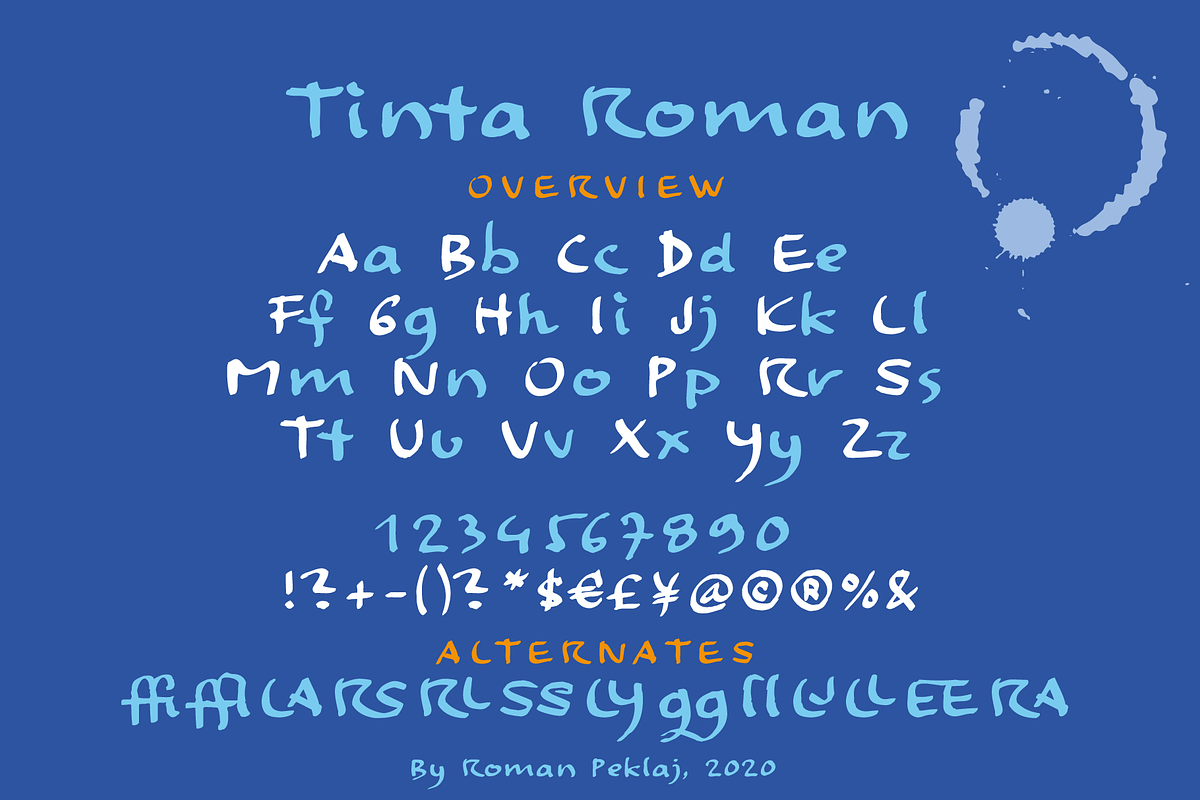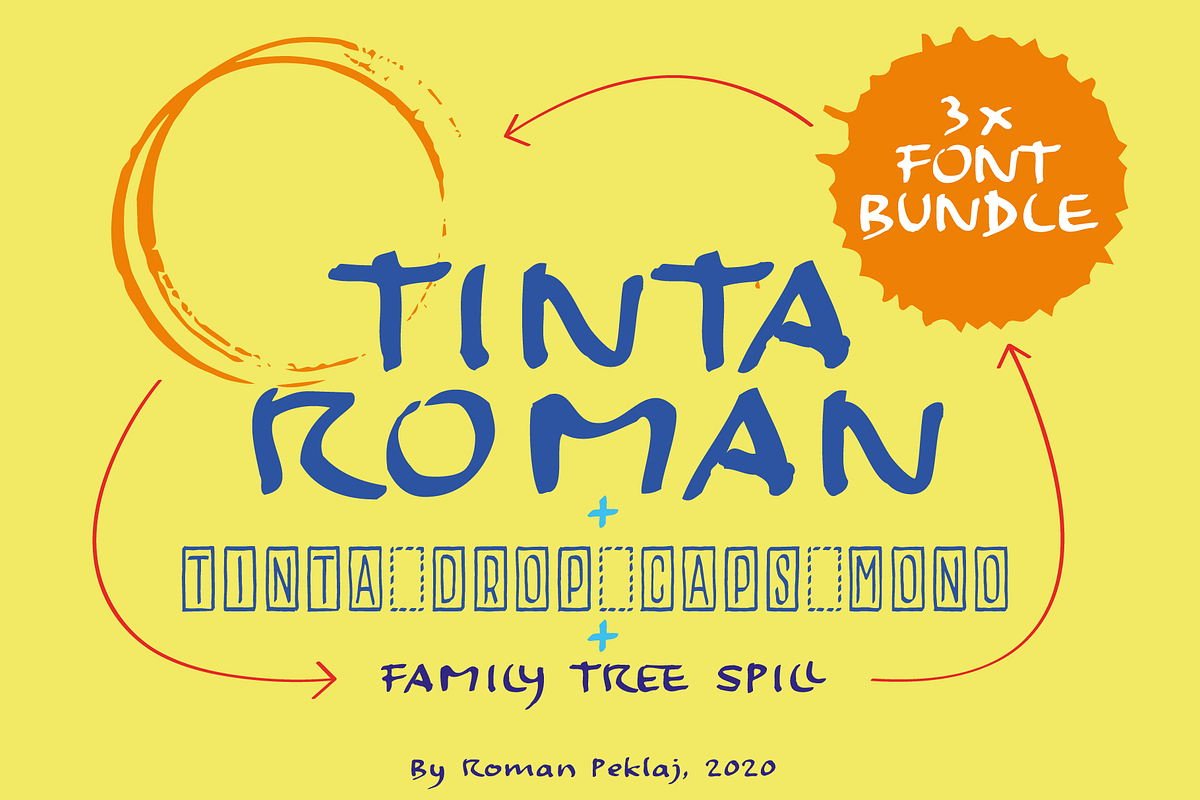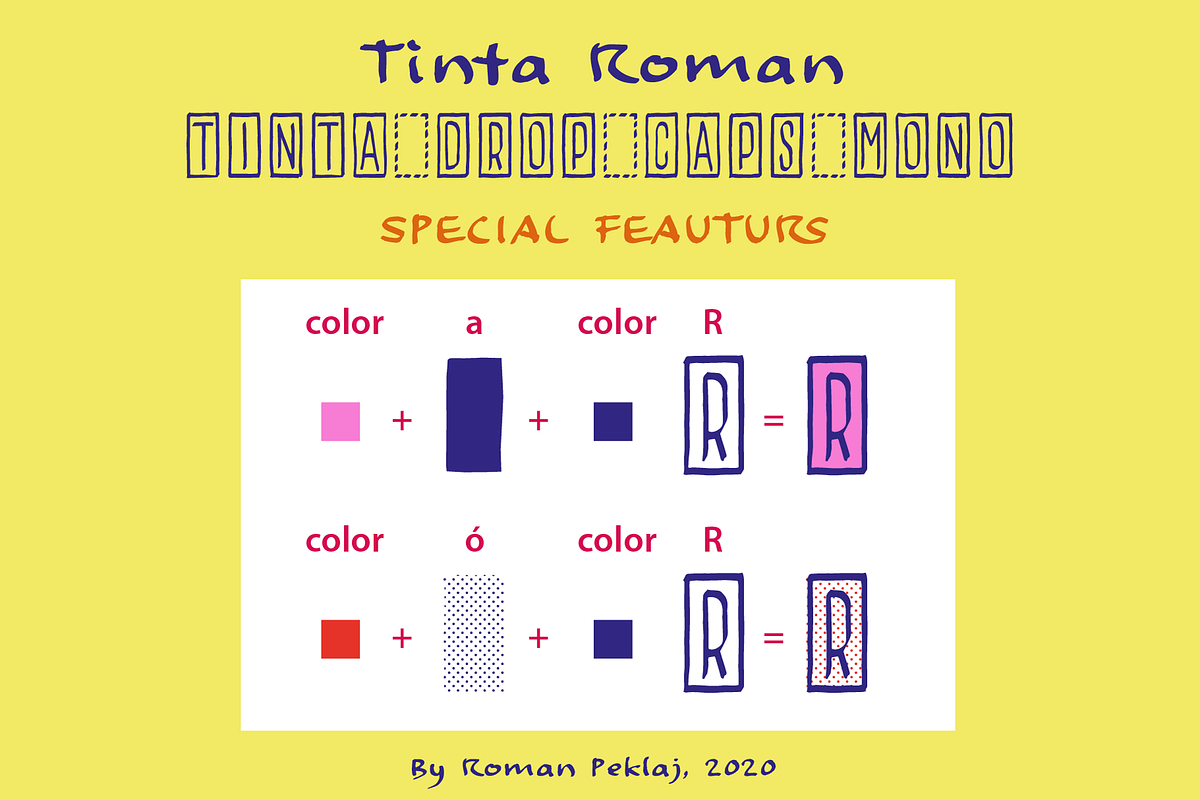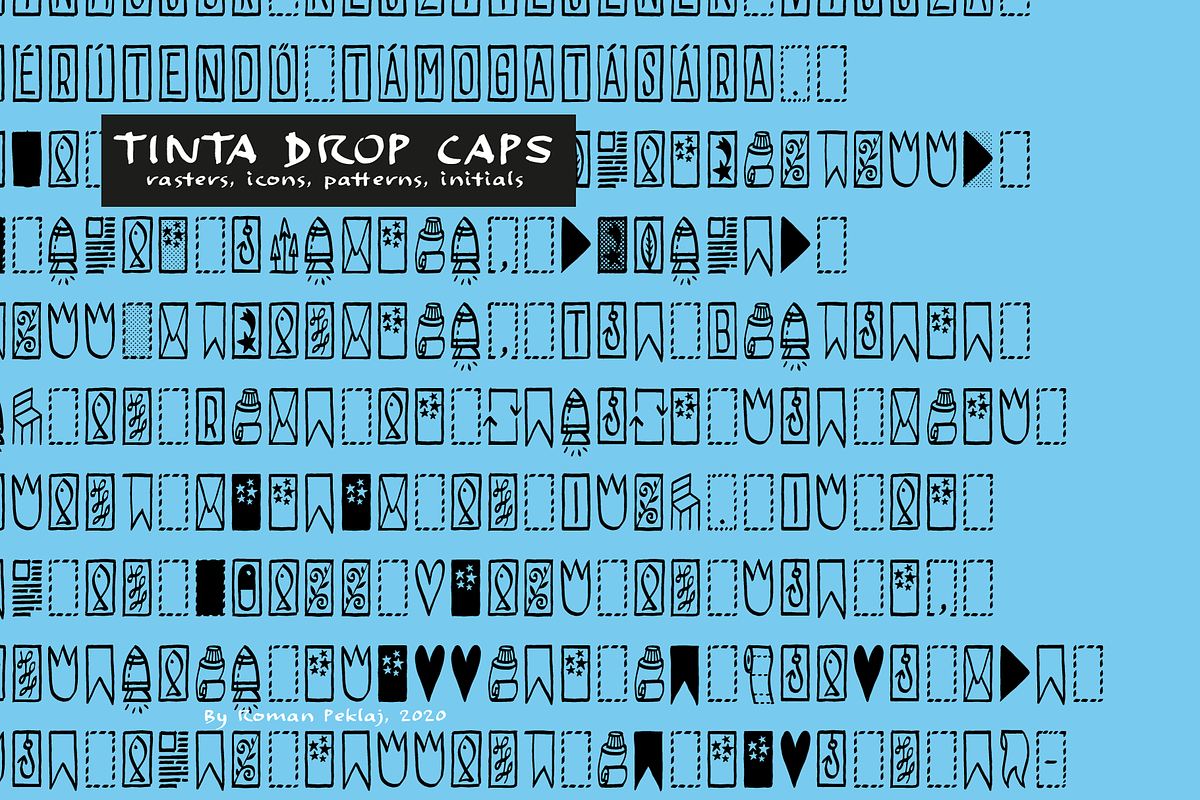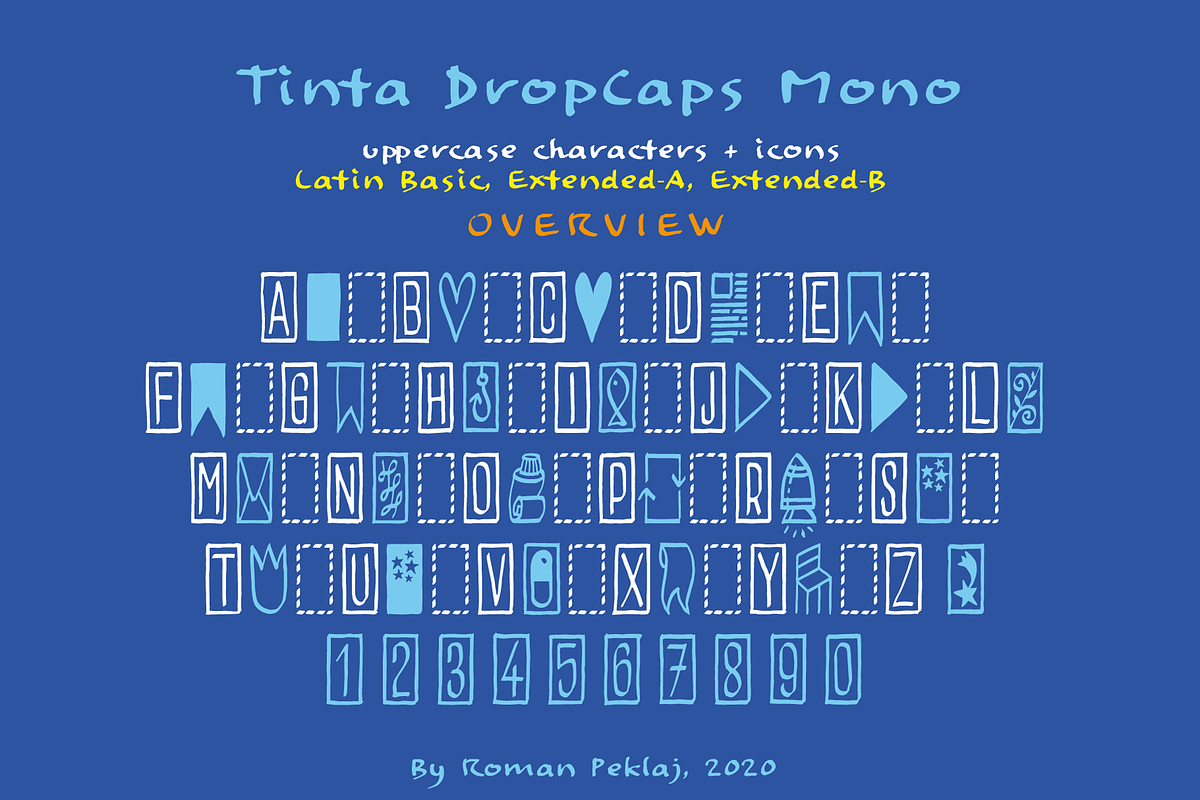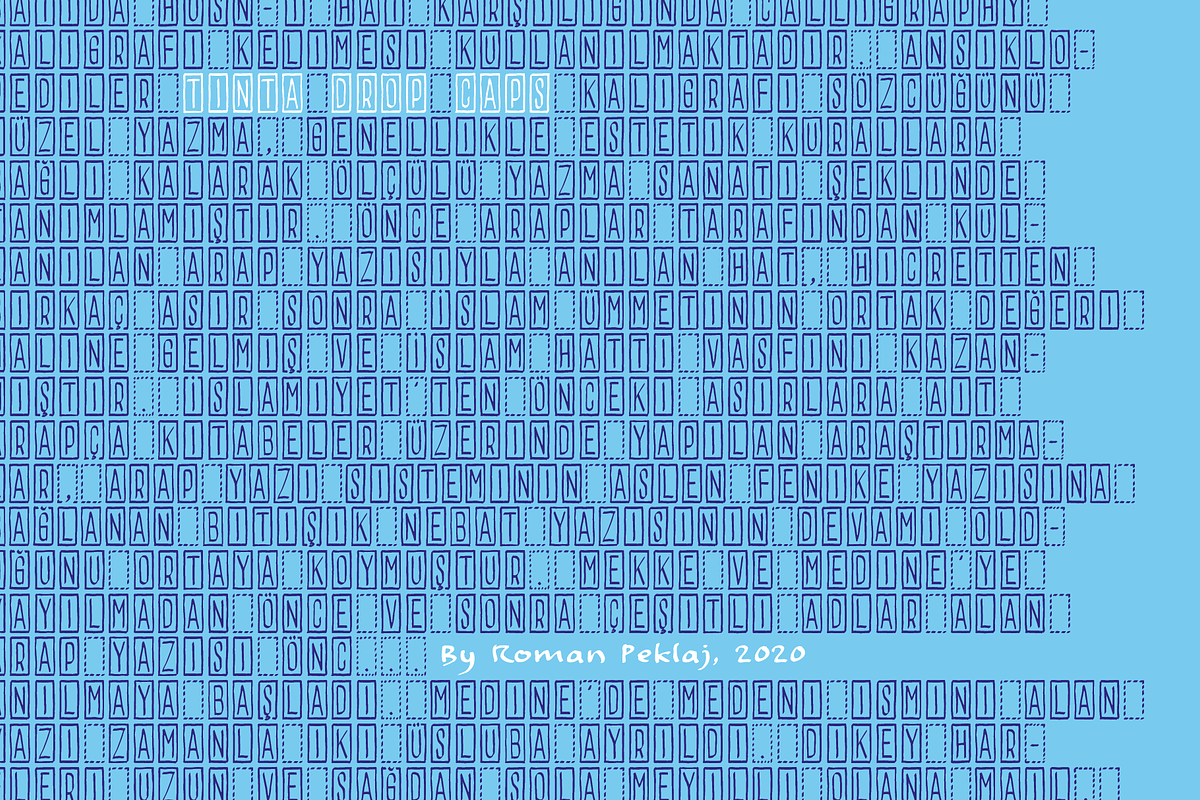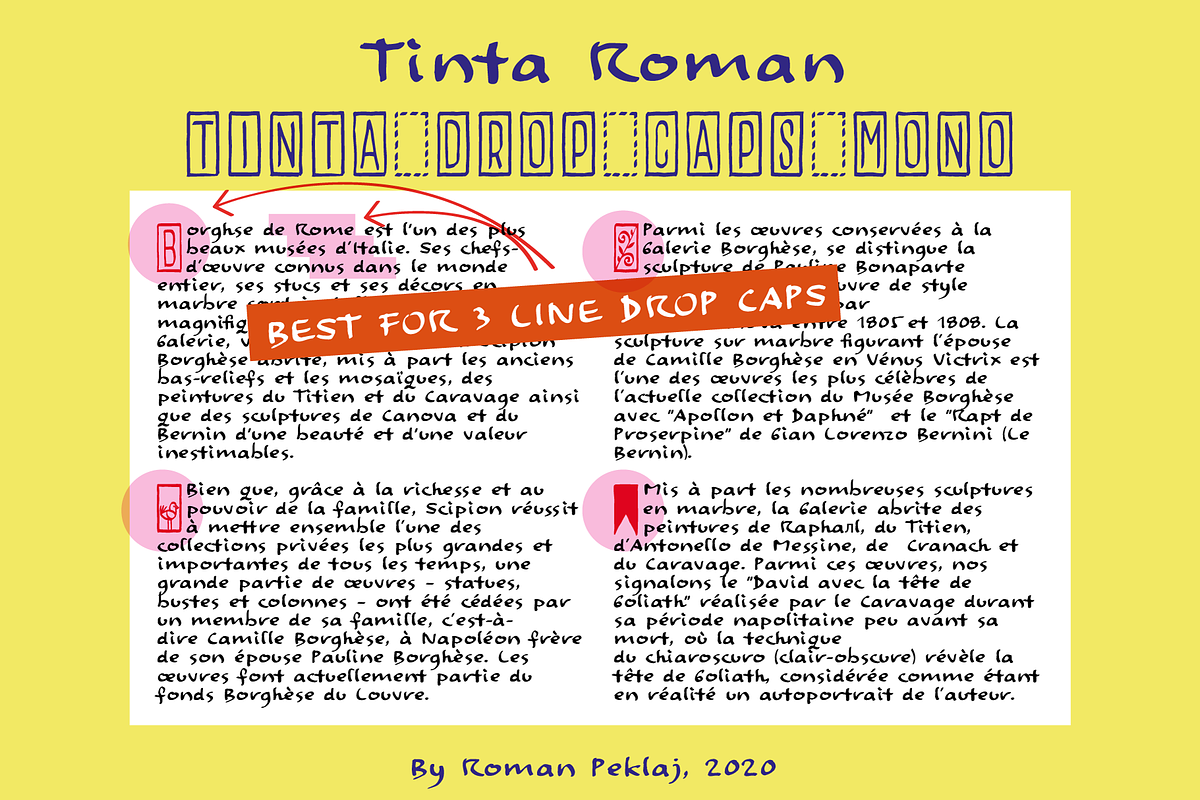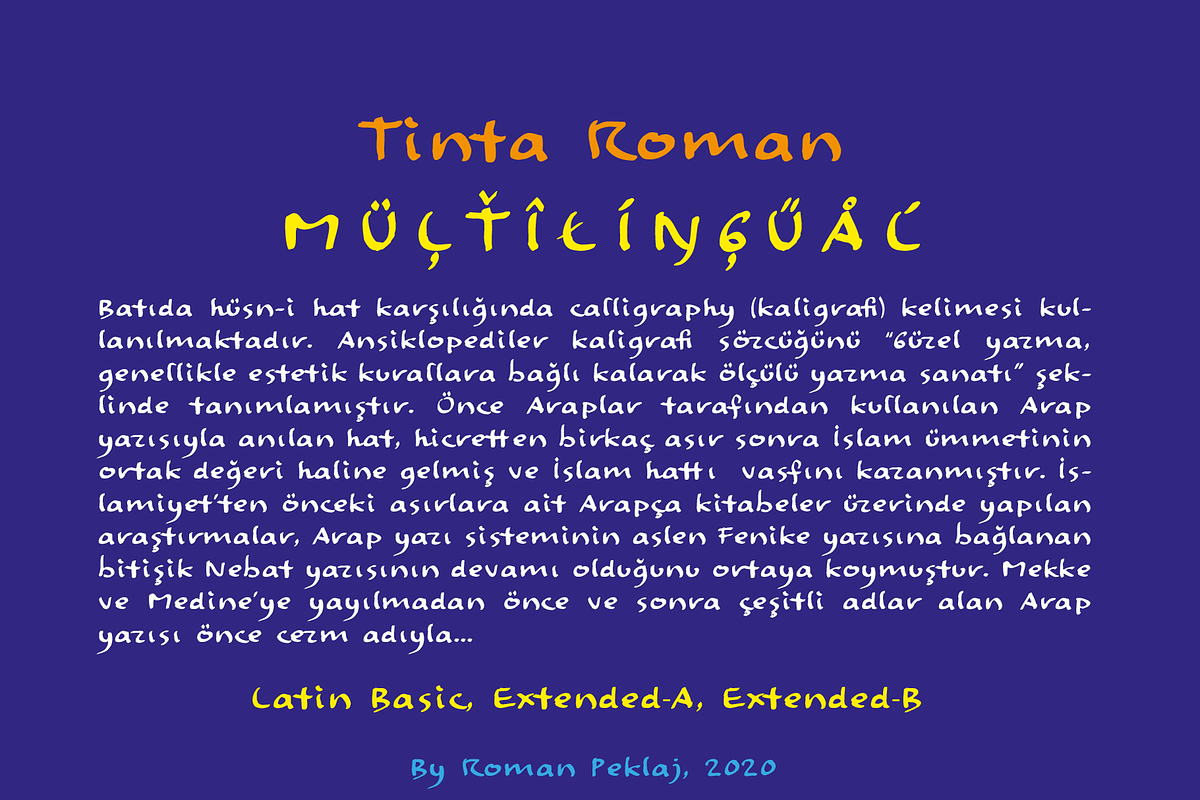
TintaRoman font BUNDLE
TintaRoman is based on my old Graphite font. Now it has been reworked, the character set has been updated and it has multilingual support.
Also included is a new TintaDropCaps font, designed for three-line initials. Works well with QuarkXPress and InDesign. Capital letters has a multilingual support, while other characters contain a large array of icons and raster patterns. Raster patterns can be used as color background for selected initials.
To make it even more authentic, the Bundle includes a FamilyTree Spill font with a large selection of ink stains to recall true calligraphy times. The font is also part of the FamilyTree Bundle.